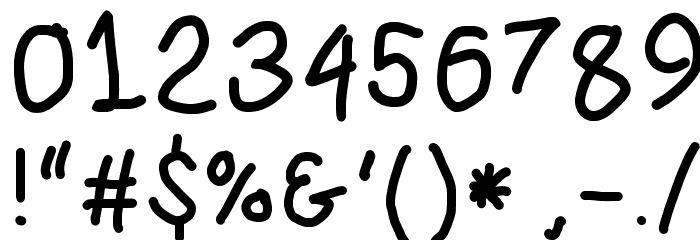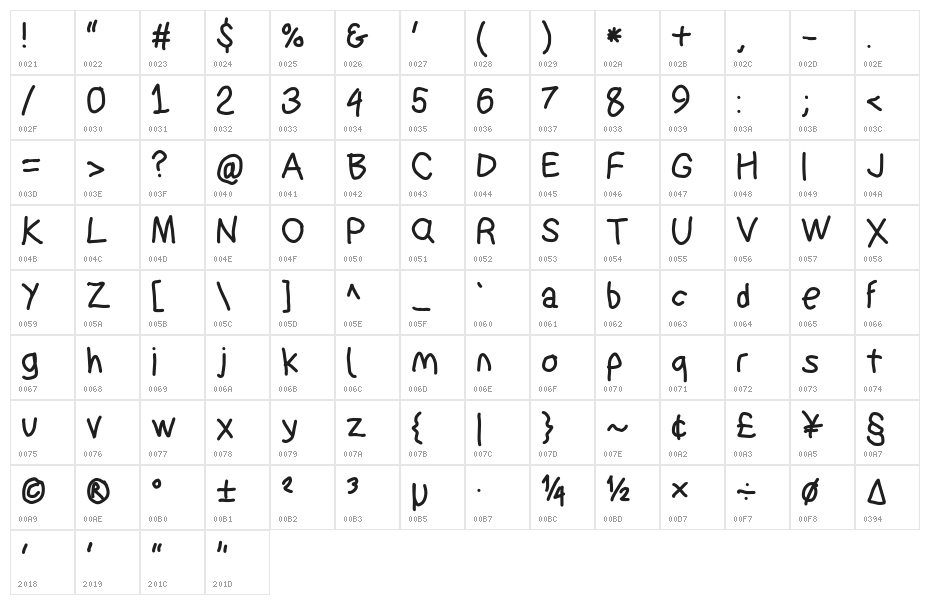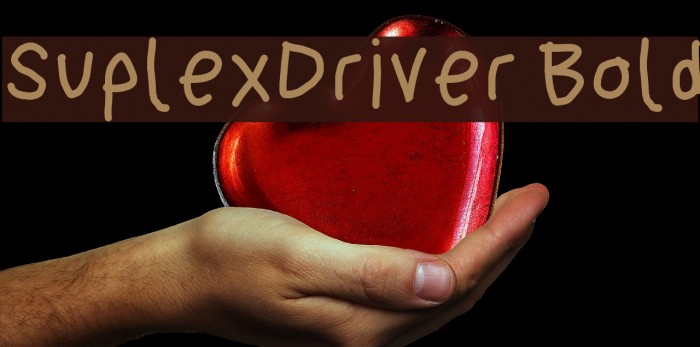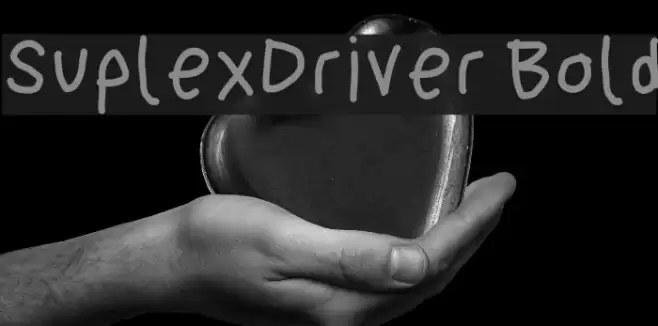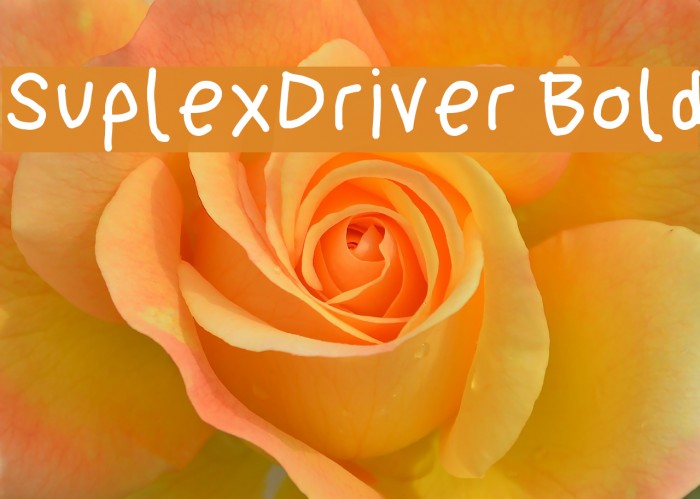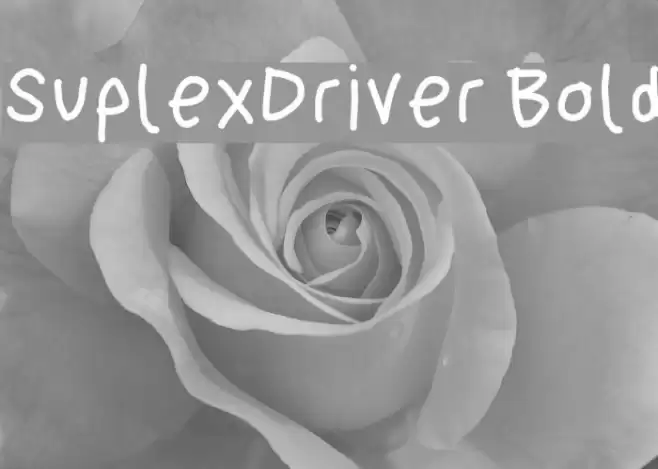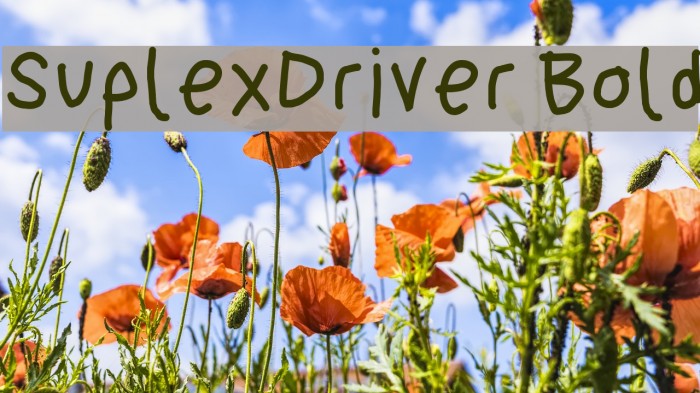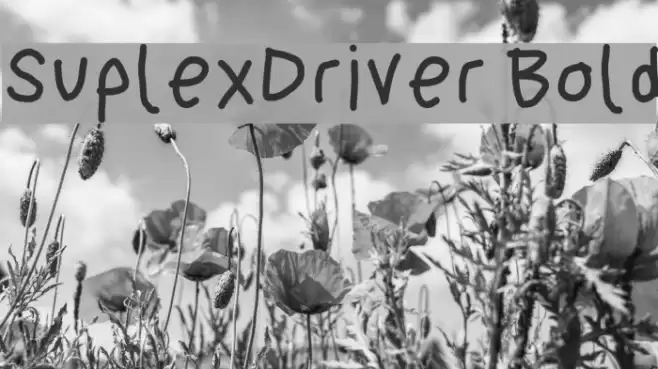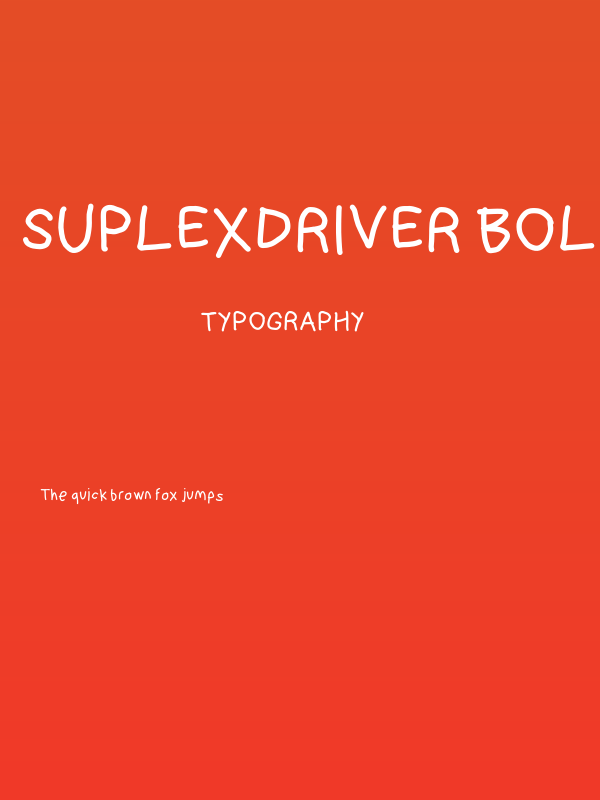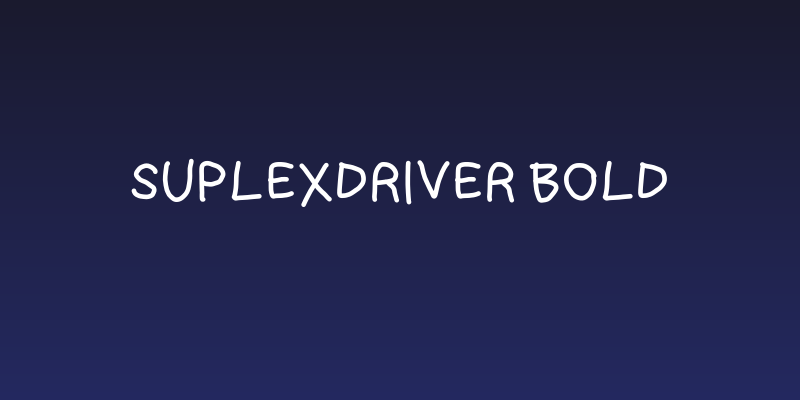
SuplexDriver Bold Font
SuplexDriver Bold Description
This font features a bold, playful style with a handwritten appearance. The characters are rounded and slightly irregular, giving it a casual and friendly look. The uppercase and lowercase letters maintain a consistent weight, enhancing readability while retaining a unique charm. The numerals and special characters are designed to match the overall style, ensuring a cohesive appearance across different uses. The font's informal nature makes it suitable for projects that require a personal touch, such as children's books, greeting cards, or playful branding.
| Overall Style | Playful, Casual |
| Use Case | Headlines, Informal text, Branding |
| Proposed Projects | Ideal for children's books, greeting cards, playful branding, and informal invitations. |